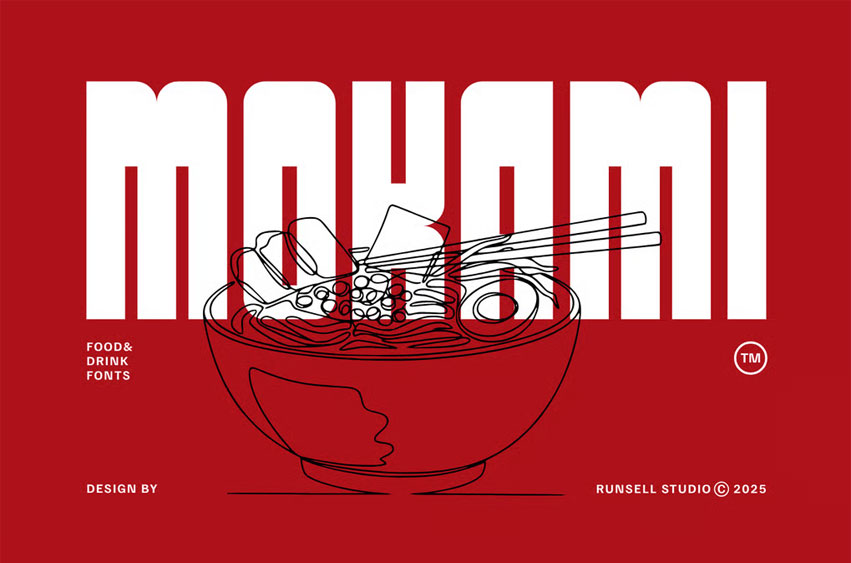
Mokami Font
Mokami Font is a playful and condensed display font designed to make your words stand out with confidence and charm. Its tall, geometric forms and smooth corners create a bold yet friendly impression — perfect for logo design, restaurant menus, coffee branding, and café packaging. Whether you’re working on a bakery, burger, or pizza project, Mokami delivers a strong visual presence with a modern, uplifting tone.
Ideal for food, candy, or chocolate identity systems, this font captures the spirit of contemporary kitchen culture — expressive, creative, and full of flavor. With stylistic alternates, ligatures, and multilingual support, Mokami helps you craft a cohesive brand identity that’s both stylish and approachable. It’s the perfect choice for designers who want to mix confidence, clarity, and a touch of playfulness in every cooking or menu-inspired project.
Cooked with Creativity, Served with Style.